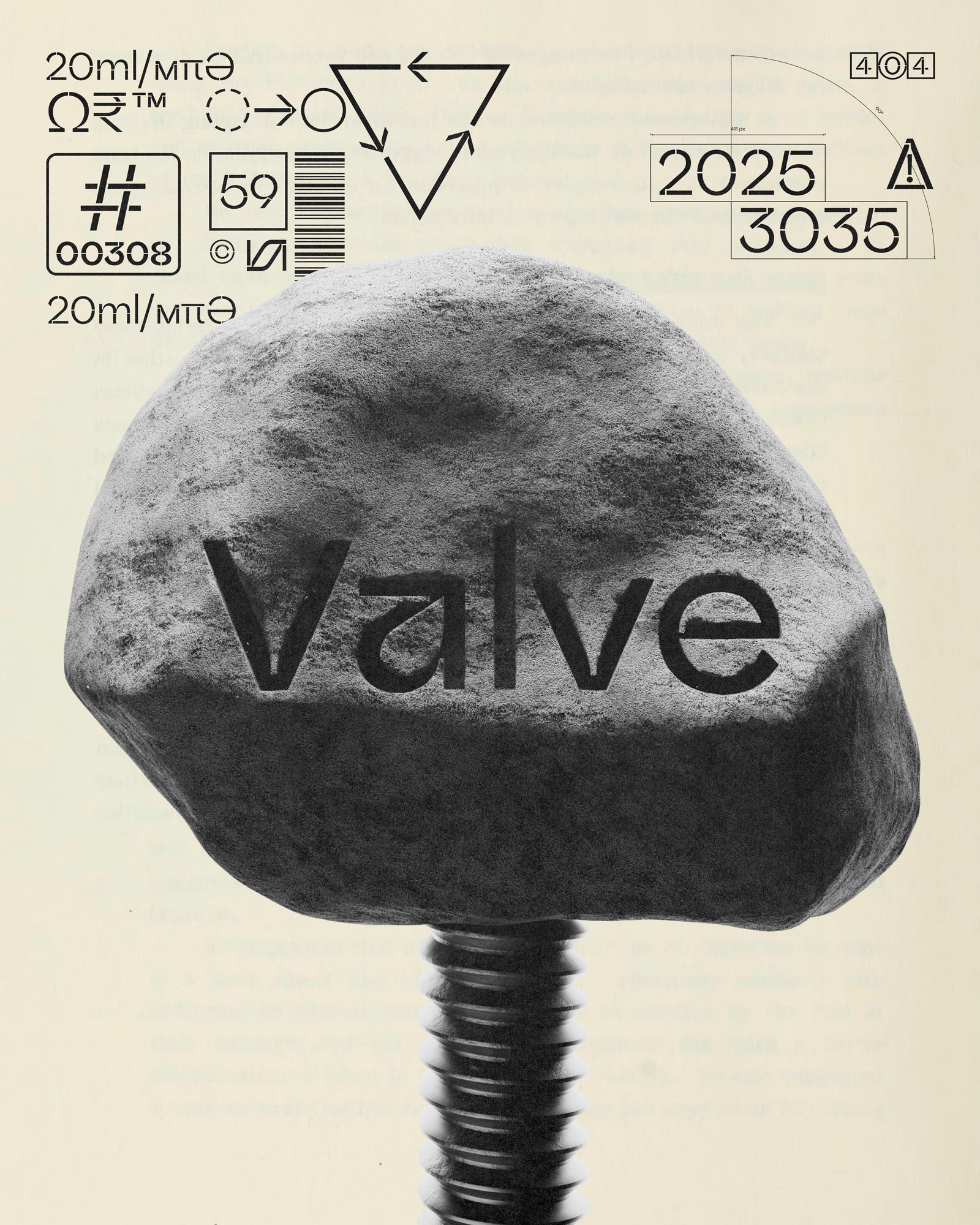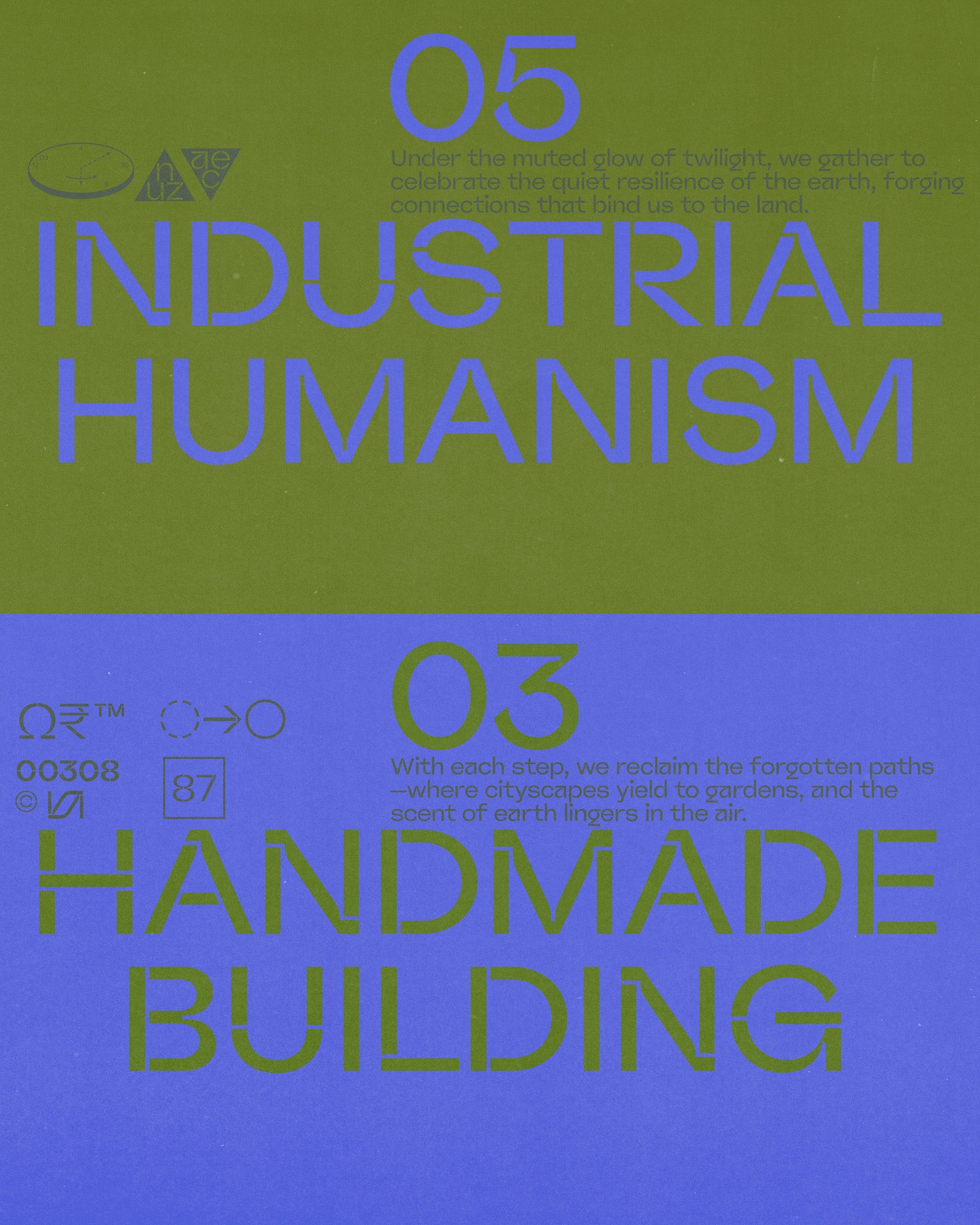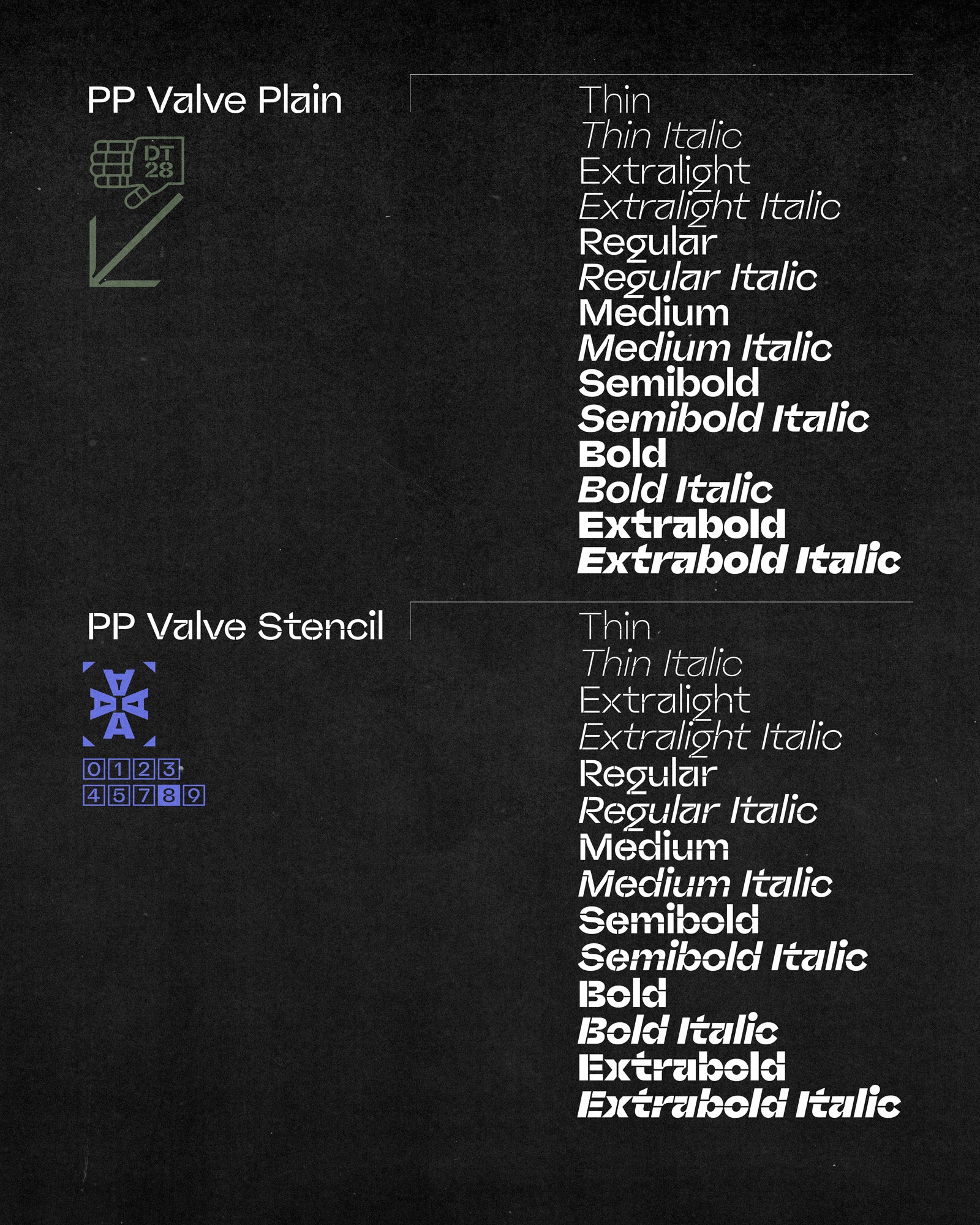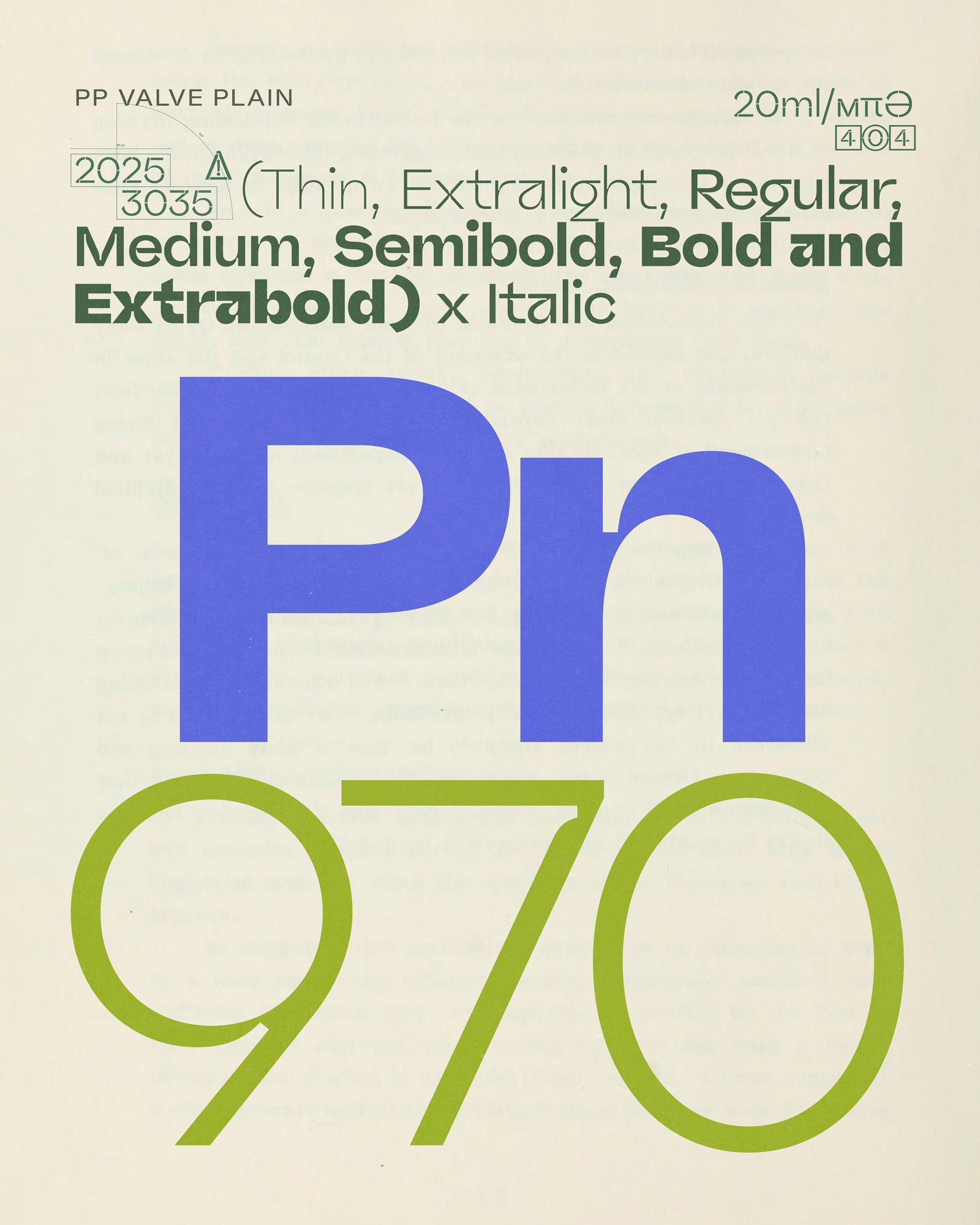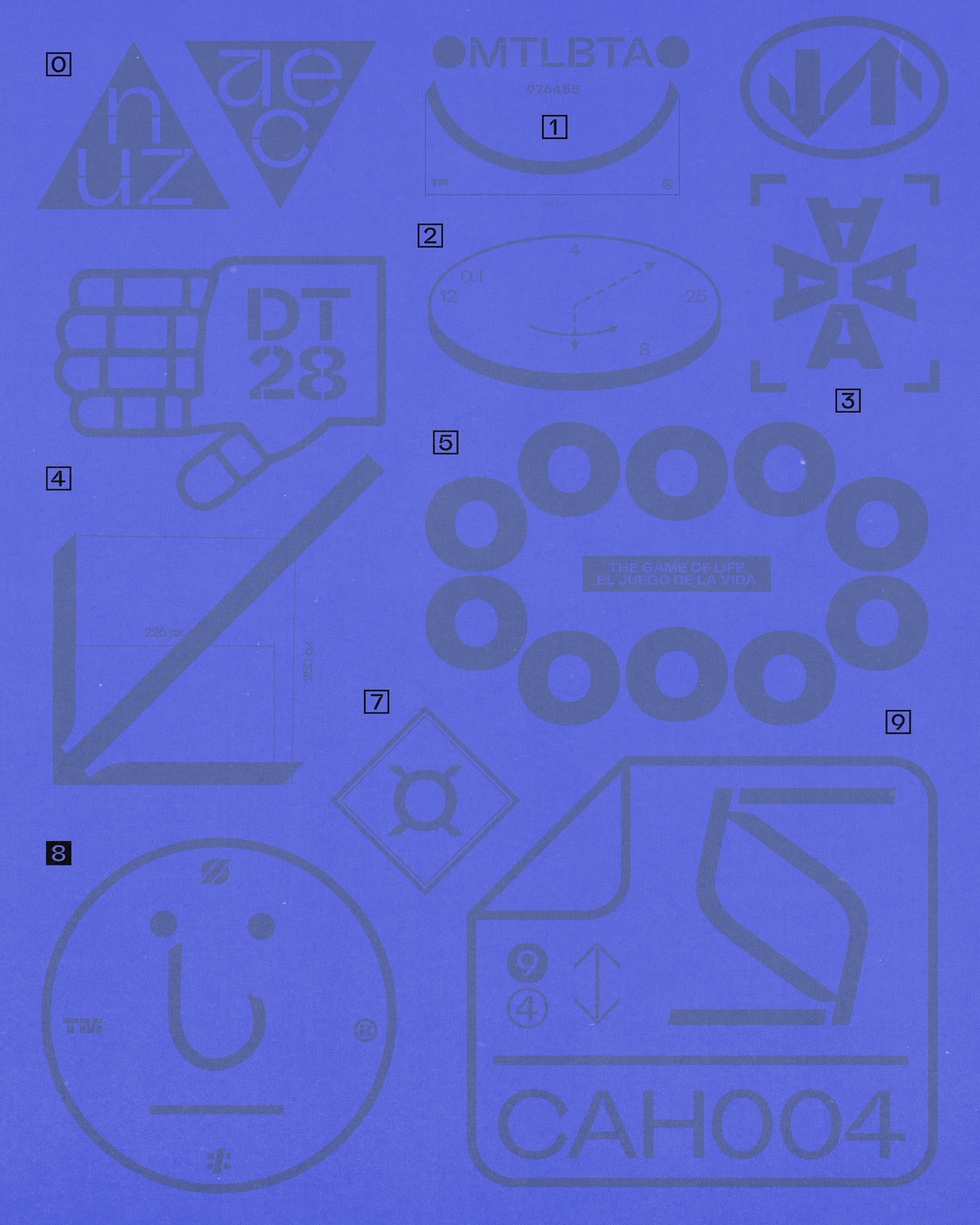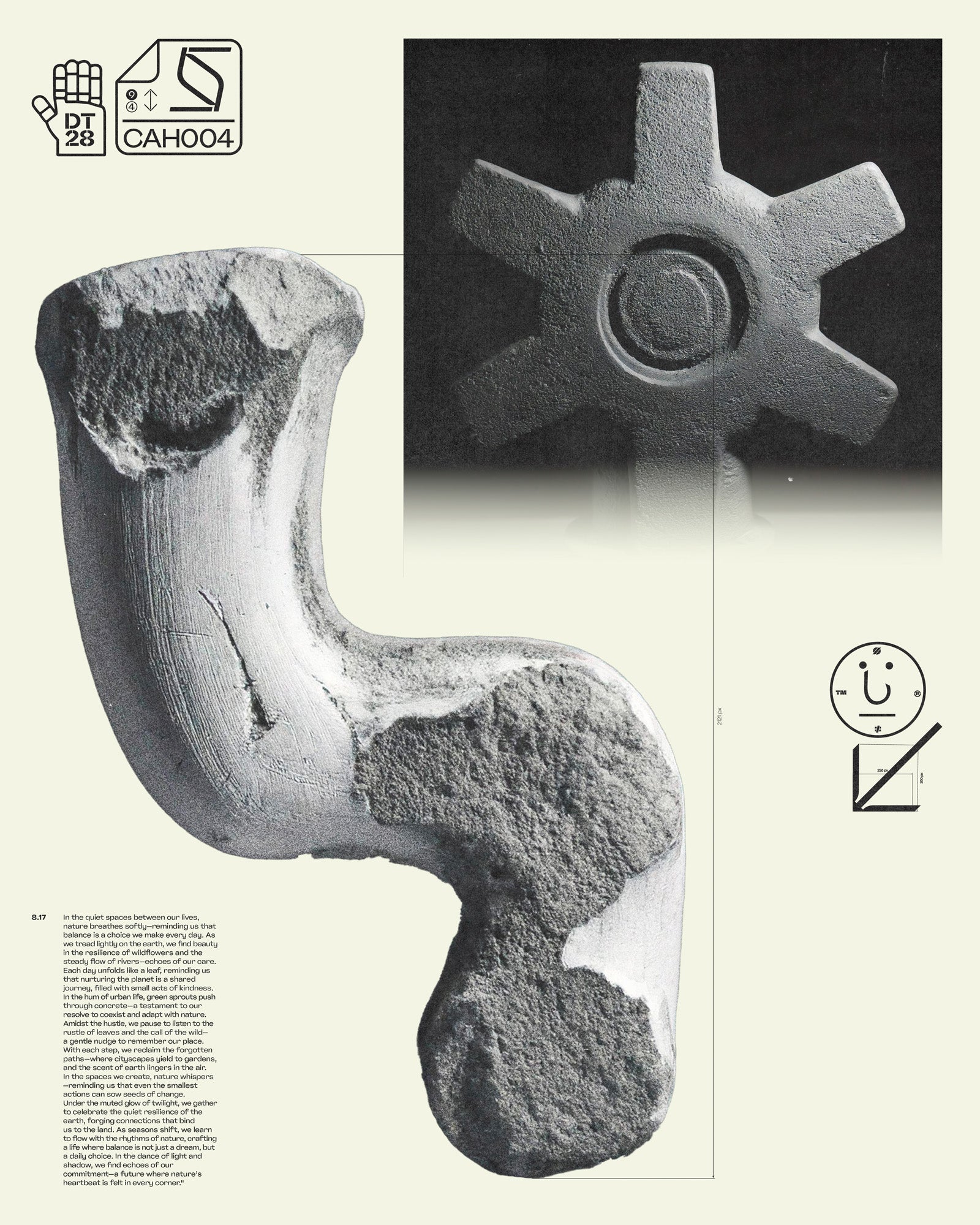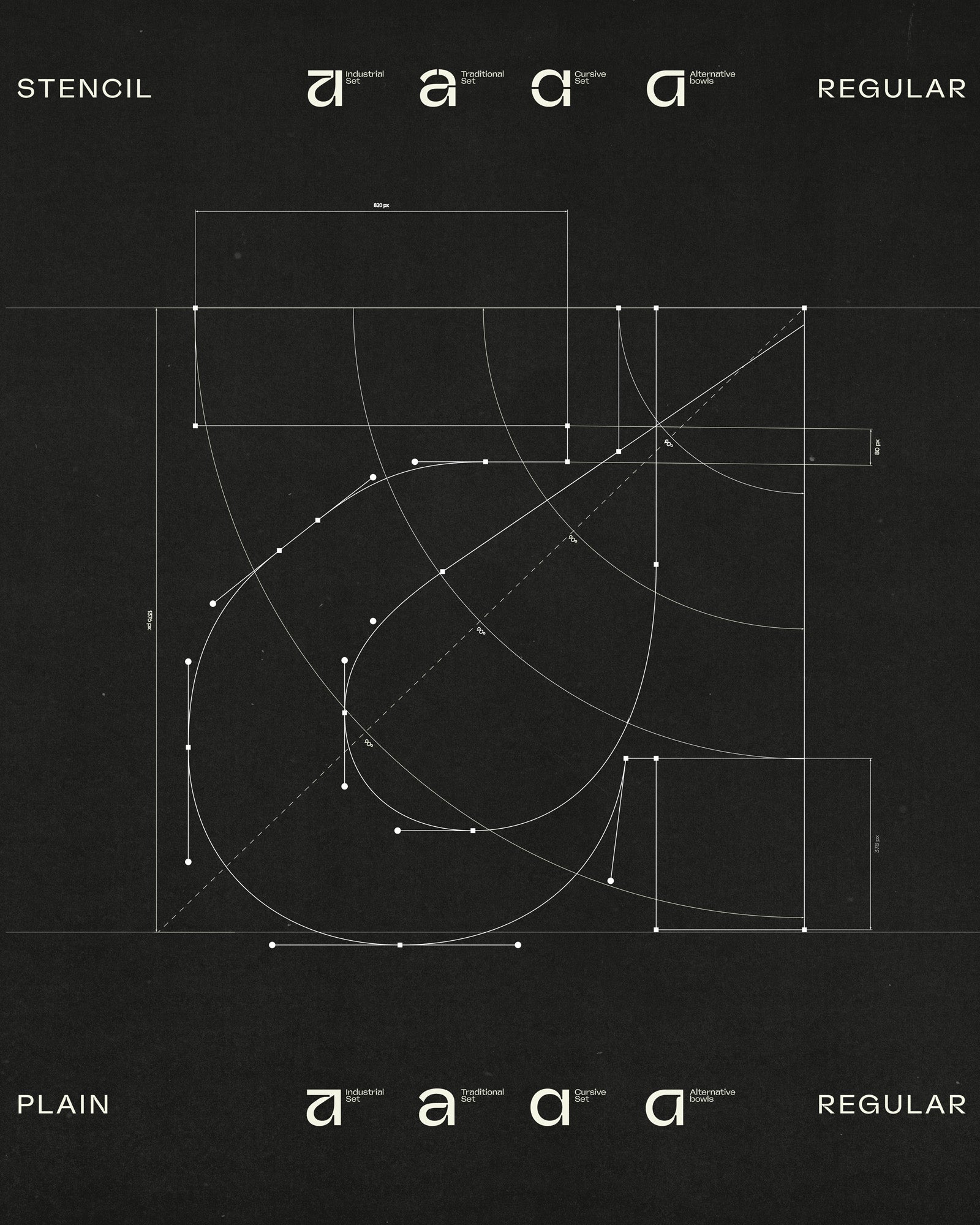
Valve
With its adaptability and dynamic nature, Valve allows you to control and fine-tune the expressive qualities of your text.
Pressure Shapes Personality.
Valve is a versatile typeface collection that blends grotesque, geometric, gestural, industrial, monospaced, and cursive sans serif styles into a unified, cohesive ensemble. Defying conventional classifications, Valve provides a wide range of typesetting options through its two distinct families: an ink-trapped workhorse designed for excellent readability at small sizes, and a striking stencil companion that reveals the font’s modular structure and underlying design connections. Valve features three main stylistic sets—a blocky semi-monospaced variant, a familiar humanist style, and a lively cursive option—each showcasing unique contextual ligatures that adapt to tracking for smooth text flow in any combination.
With its adaptability and dynamic nature, Valve allows you to control and fine-tune the expressive qualities of your text, making it ideal for a variety of projects, from bold branding and impactful signage to refined editorial design.
2 cuts X 18 Styles each with 960 Glyphs
Including Italic & Stencil Cut